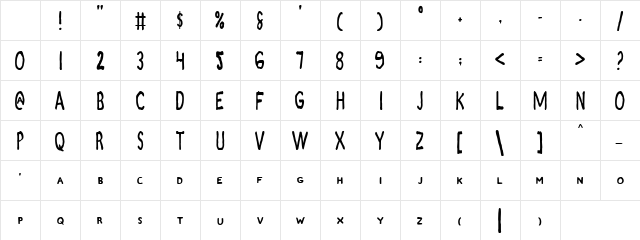
Zamboni Joe Regular
Zamboni Joe Family
Design Context for Zamboni Joe
Zamboni Joe is a composed and adaptable typeface that performs quietly and consistently across a wide range of design contexts.
Pro Tip: Use Zamboni Joe in both headline and body roles to test its range before committing to a single application.